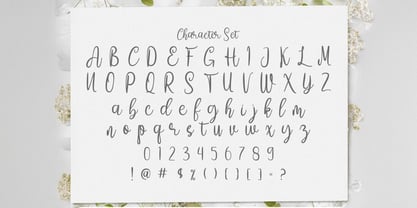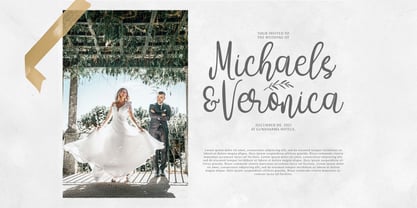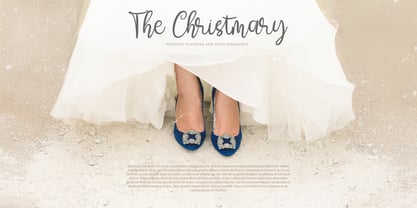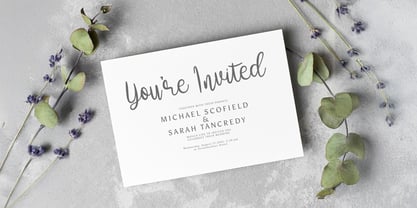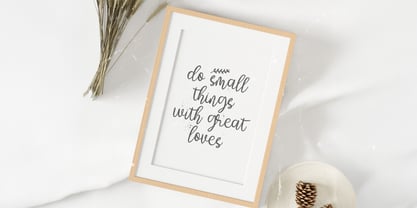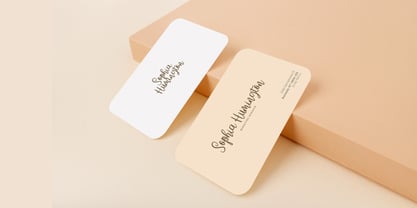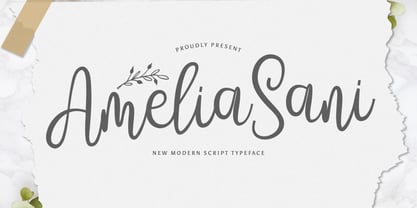
The Amelia Sani Font Family was designed by Virgiawan Listanto and published by Stringlabs Creative Studio. Amelia Sani contains 1 styles.
Amelia Sani is a graceful handwritten font that blends elegance with a touch of modern charm. With its soft curves and flowing strokes, this font brings a natural, personal feel that’s perfect for adding warmth and beauty to your designs.
Designers: Virgiawan Listanto
Publisher: Stringlabs Creative Studio
Foundry: Stringlabs Creative Studio
Design Owner: Stringlabs Creative Studio
Amelia Sani